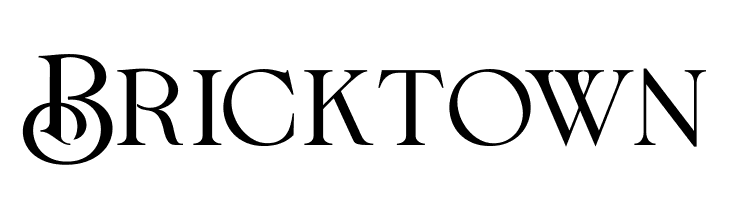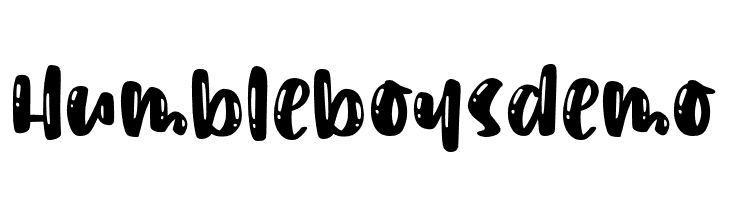
A whimsical, monster-themed decorative font with playful, hand-drawn characters.
A bold, chiseled font with a three-dimensional effect, perfect for impactful designs.
A playful, handwritten-style font with smooth, rounded strokes.
A thin, elongated serif font with a modern yet classic style.
A bold, connected script font with a flowing, cursive style.
A playful, hand-drawn font with a whimsical and bold style.